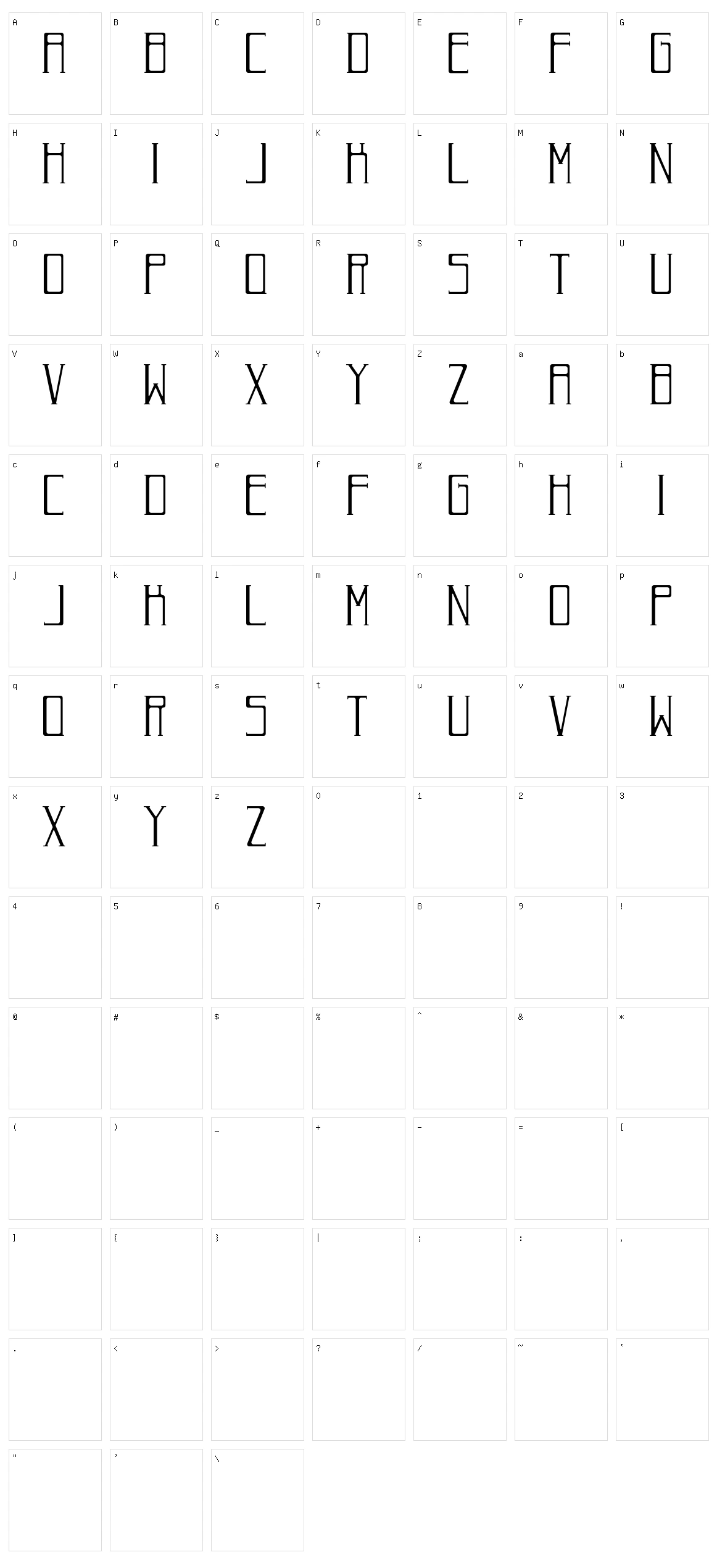
The free font Roman Deco is carefully designed by Tomas Carrico, showcasing a thoughtful balance of creativity and usability and falls under the Retro font style. When you download the ZIP file, it contains only 3.23 KB of font files, making it lightweight and quick to download. Please review the license details below to understand permitted usage and distribution rights. If license information is not available, we recommend using this font for personal projects only or contacting the author directly for commercial usage permissions.